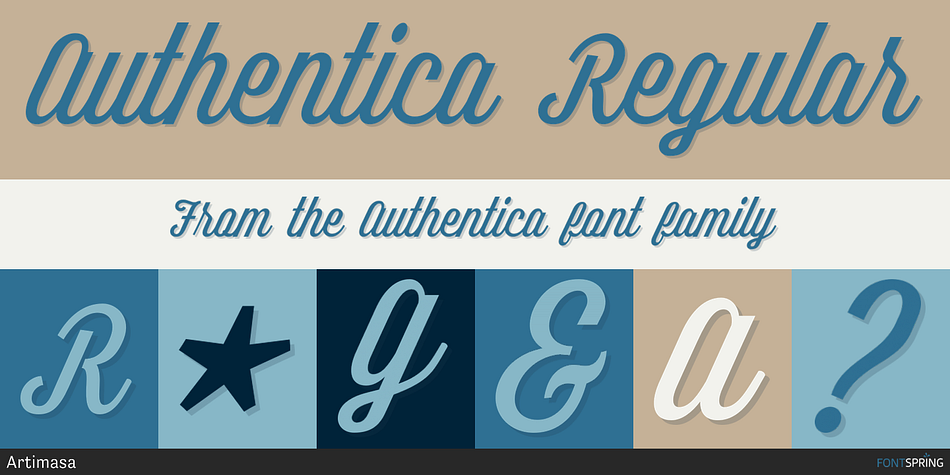
Authentica Regular
Authentica is a grunge and brush script font family. This typeface has four styles and was published by Artimasa.
Authentica is a modern script that is casual, elegant, and multipurpose.
Authentica is a modern script that is casual, elegant, and multipurpose. It can be used in any design style such as modern, casual, vintage, retro, formal, creative, minimalist, etc. Authentica also contains OpenType features to improve your design. You can mix and match the alternate characters to add an attractive message to your design.